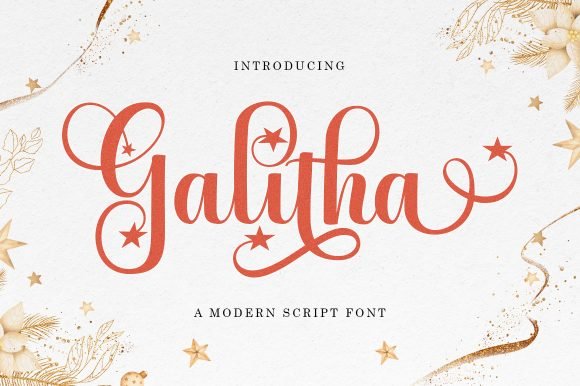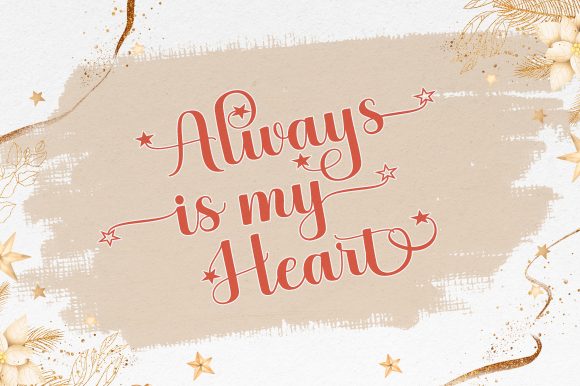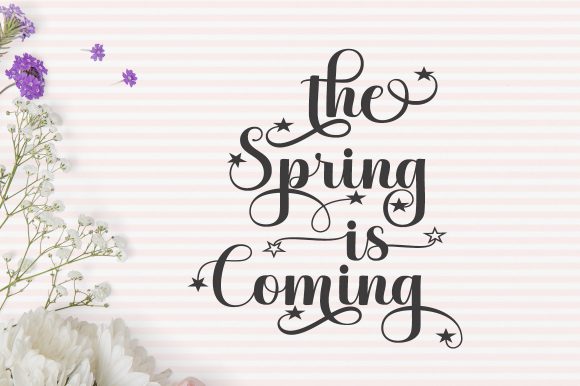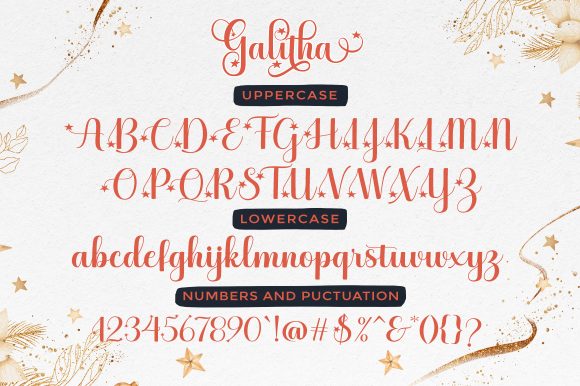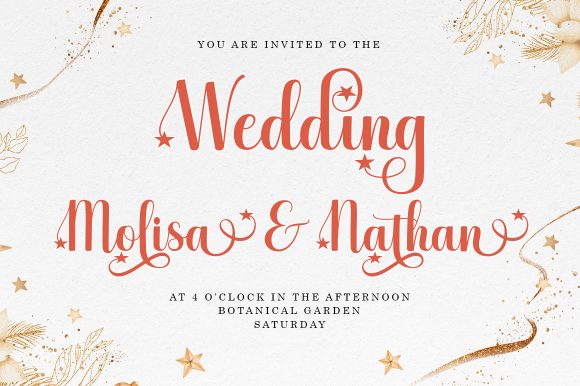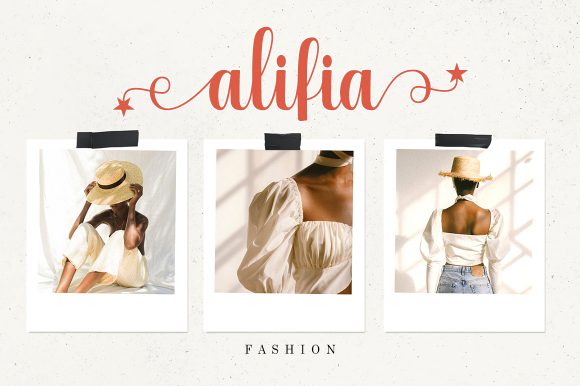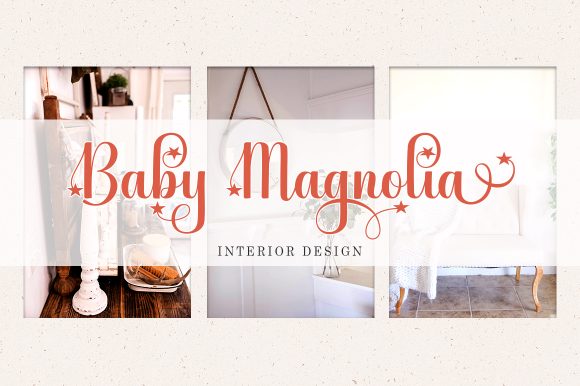
Get Ready to Fall in Love with the Perfect Handwritten Font
Have you ever been scrolling through your social media feeds, and suddenly you come across a post that makes your heart skip a beat? Maybe it’s a beautifully designed graphic, a quirky meme, or a heartfelt quote that resonates with you. Whatever it is, it’s safe to say that a great design can make a lasting impression. And for designers, finding the right font can be the key to unlocking that perfect creative moment.
Enter the Galitha Font, a charming and whimsical handwritten font that’s sure to add a touch of joy to any design. Whether you’re creating beautiful stationery, eye-catching social media posts, or something entirely new, Galitha Font is the perfect companion to help bring your vision to life.
With its playful style and effortless charm, Galitha Font is a valuable addition to any designer’s toolkit. Its versatility and unique character make it an ideal choice for a wide range of projects, from personal branding to advertising campaigns. So why settle for a bland, generic font when you can add a little bit of magic to your designs with Galitha Font?
Galitha Font Key Features
- Unique Characteristic: The font features a unique blend of modern and traditional elements, making it suitable for a wide range of design projects.
- Font Style: The font comes in multiple styles, including Regular, Italic, Bold, and Bold Italic, allowing designers to choose the perfect style to match their design needs.
Galitha Font Review
As a designer, I was excited to dive into the world of Galitha Font and see what it has to offer. Overall, I’d say it’s a solid choice for those looking for a unique and elegant font. Here’s my honest review:
- Galitha Font’s aesthetic is truly unique and sophisticated, making it perfect for high-end branding and design projects.
- The font’s elegant curves and flowing lines create a sense of luxury and refinement.
- It’s highly versatile and can be used for a wide range of applications, from headings to body text.
- Galitha Font can be a bit challenging to read at smaller font sizes, which may require some adjustments to ensure legibility.
- The font may not be ideal for titles or headings that require bold or italic styles, as it can become quite ornate and lose its elegance.
- Some users may find the font’s complexity overwhelming, which could affect its overall usability.
Overall, I’d say Galitha Font is a great choice for designers who want to add a touch of sophistication and elegance to their projects. While it may have some limitations, its unique aesthetic and versatility make it a solid addition to any font collection.
The Galitha Font is ideal for use in creative projects such as:
– Advertising and marketing materials
– Digital art and graphics
– Print materials such as business cards and brochures
Tips for Getting the Most Out of Galitha Font
To get the most out of the Galitha Font, consider the following tips:
– Experiment with different font sizes and styles to achieve a unique look.
– Use the font in combination with other design elements to create a cohesive visual identity.
– Consider pairing the Galitha Font with other fonts to add contrast and interest.
Alternative Fonts to Galitha Font
The Great Vibes font is a modern, elegant, and cursive script font. It is ideal for use in wedding invitations, greeting cards, and other decorative designs. It has a similar aesthetic to Galitha Font but is more refined and polished.